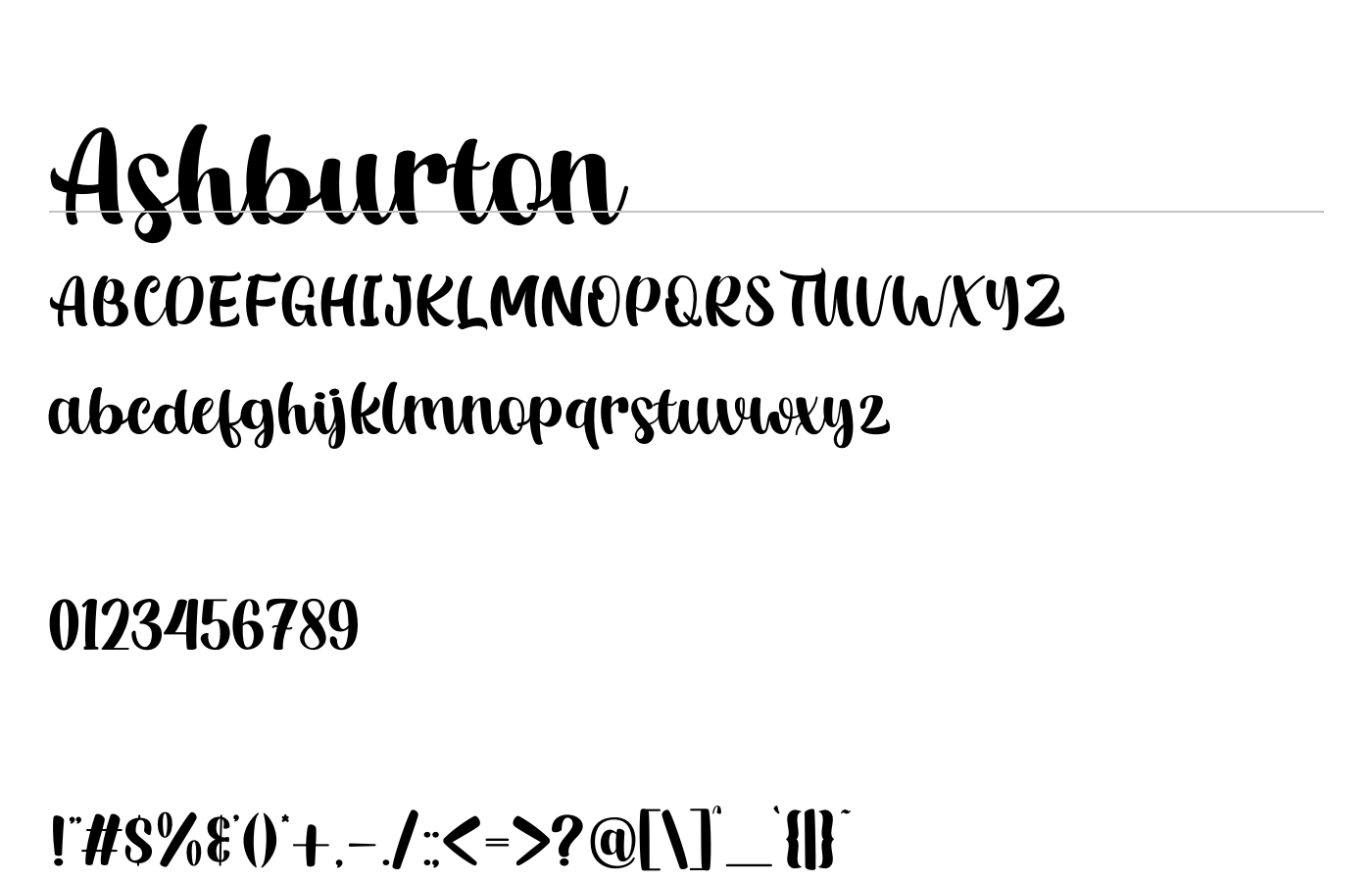
Ashburton is a bold, playful script font with smooth, rounded strokes and lively curves that give it a friendly yet stylish feel. Its thick, brush-like appearance combined with a casual handwritten style makes it perfect for eye-catching headlines, packaging, or branding that aims to be approachable and fun. This font works well in creative and informal contexts where a touch of personality and warmth is desired.
Ashburton Font
About Ashburton Font
| Font family | Ashburton Font |
| Designer | Andri Ardianto + Madatype Studio |